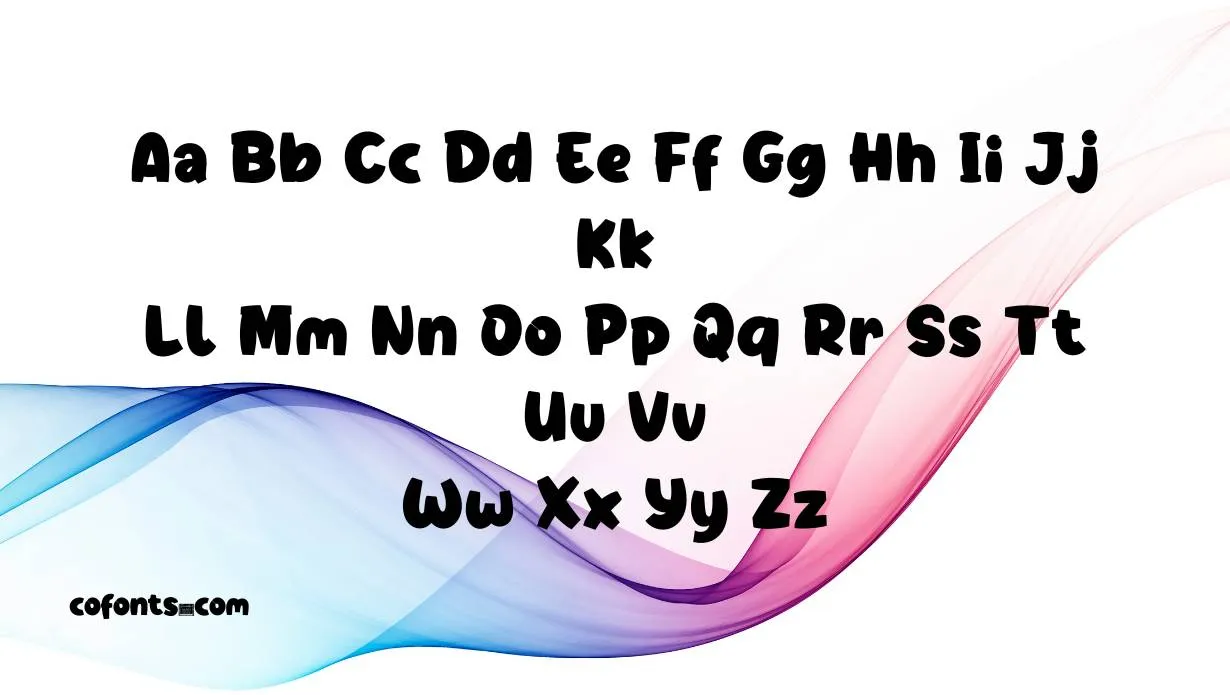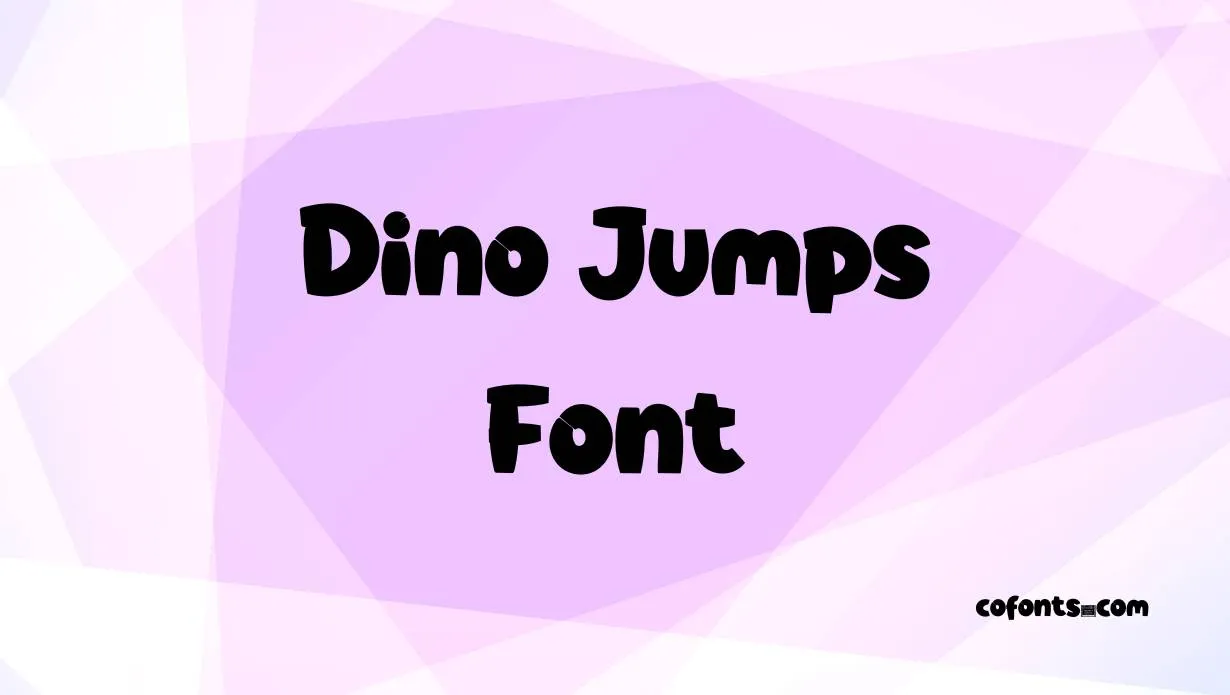
Dino Jumps Font Free Download
About Dino Jumps Font
Dino Jumps is a fun, bold display typeface with playful, cartoon‑like letterforms that make designs stand out with character and charm. Its thick, rounded shapes and energetic style are well suited for children’s content, posters, games, banners, and branding projects that require a whimsical aesthetic. The font’s readability combined with its expressive look gives designers flexibility across both digital and print media. Dino Jumps adds a sense of joy and creativity to headlines, logos, and visual identities.